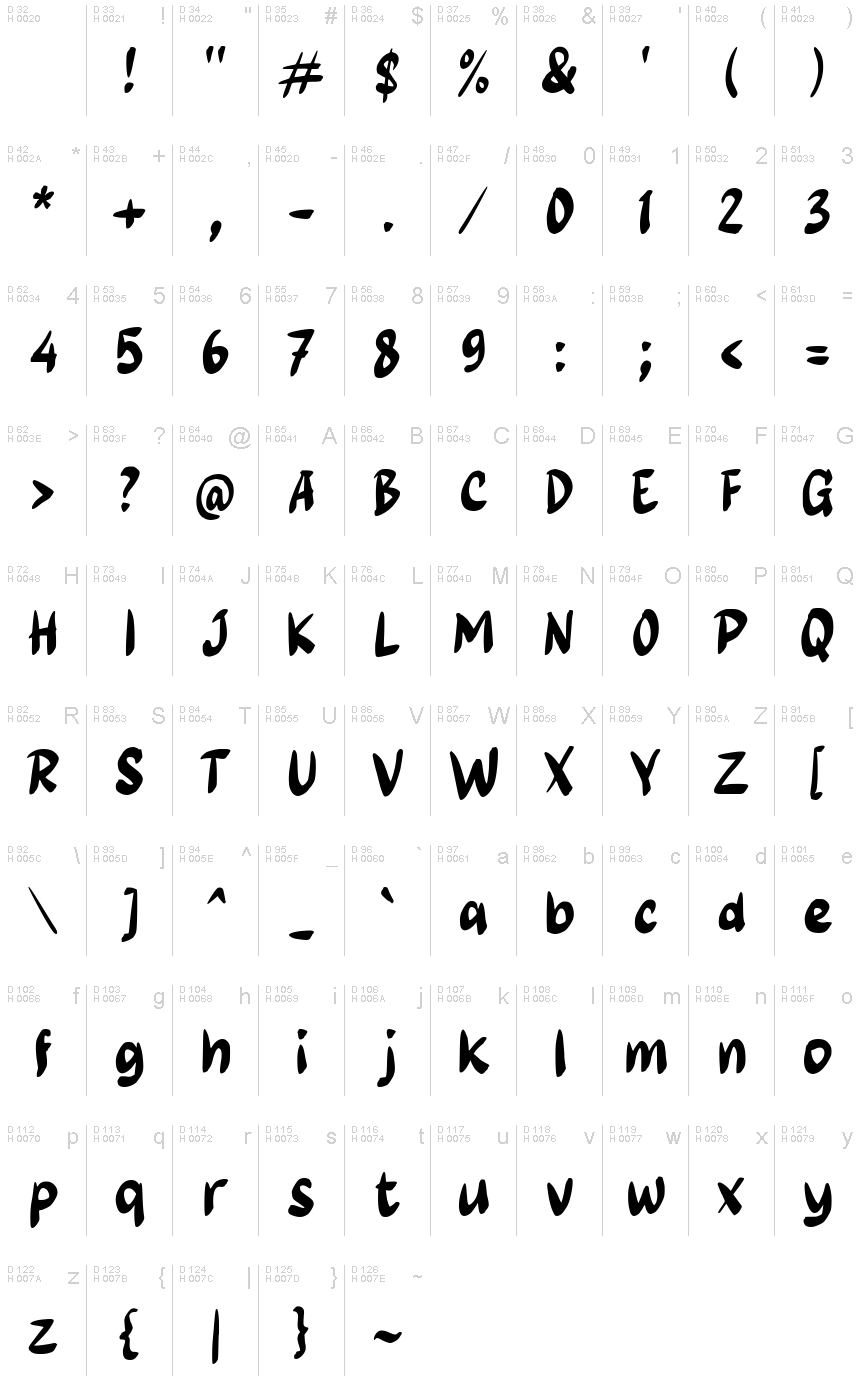
Gule
Gule, a captivating brush font crafted by wep, exudes a bold and expressive aesthetic. Its dynamic strokes and organic forms create a striking visual impact, infusing any design with a sense of energy and vitality. The font's distinctive character lends itself to a diverse range of applications, from commanding headlines to powerful branding statements.
Gule's versatility makes it a versatile choice for various creative projects. Its robust and confident appearance lends itself well to impactful logos, eye-catching posters, and dynamic editorial layouts. The font's bold nature also allows it to shine in digital interfaces, commanding attention and leaving a lasting impression on viewers.